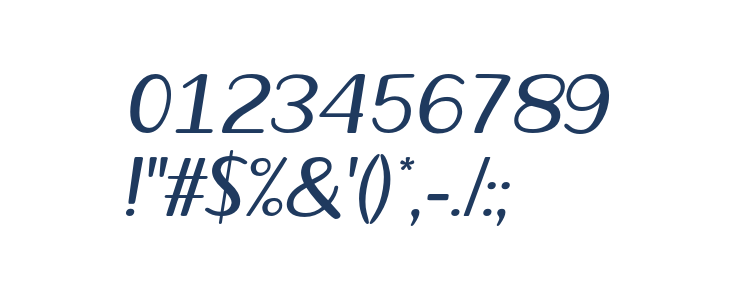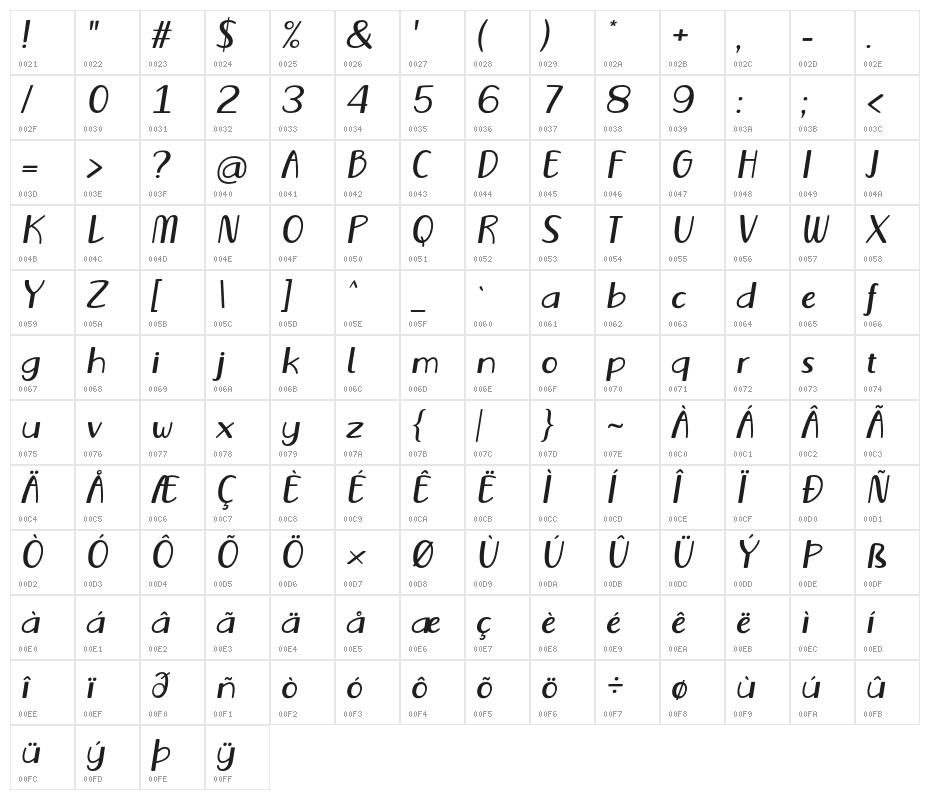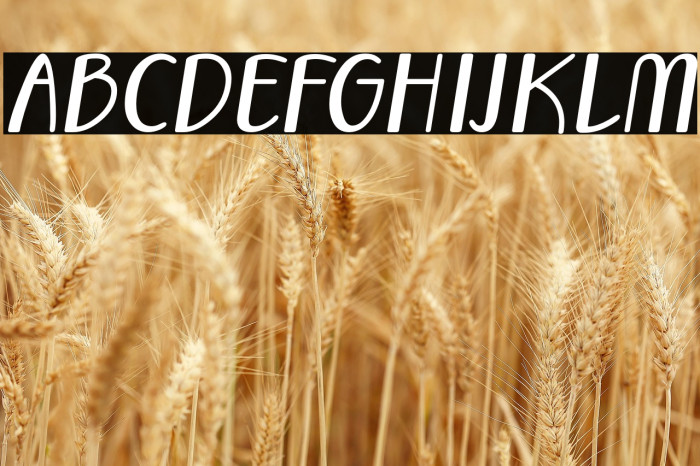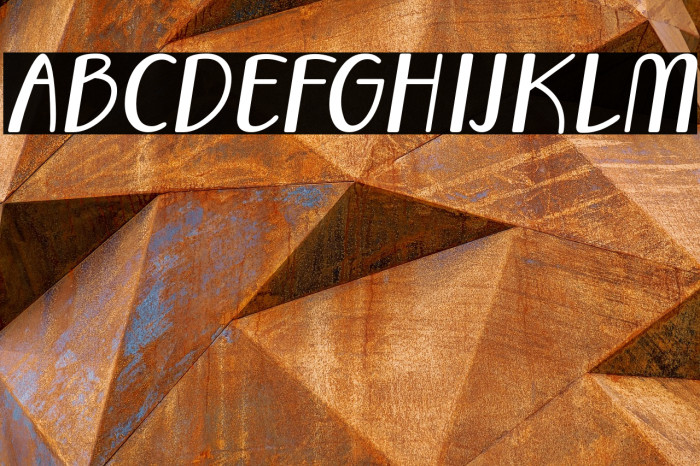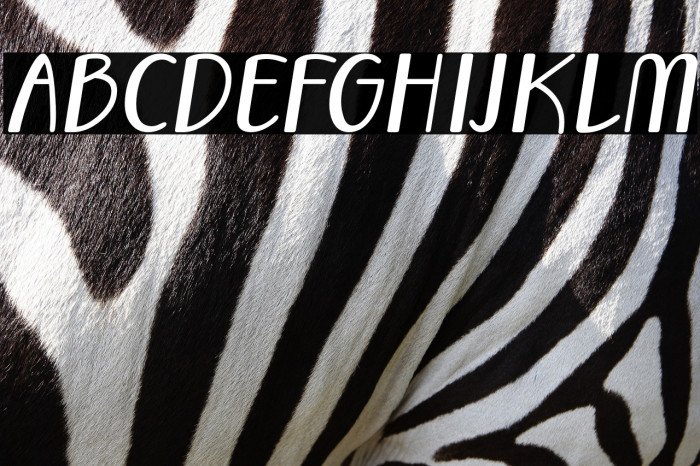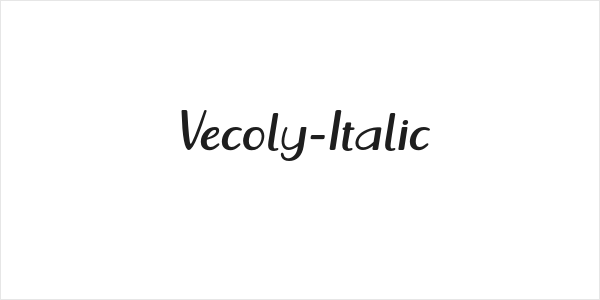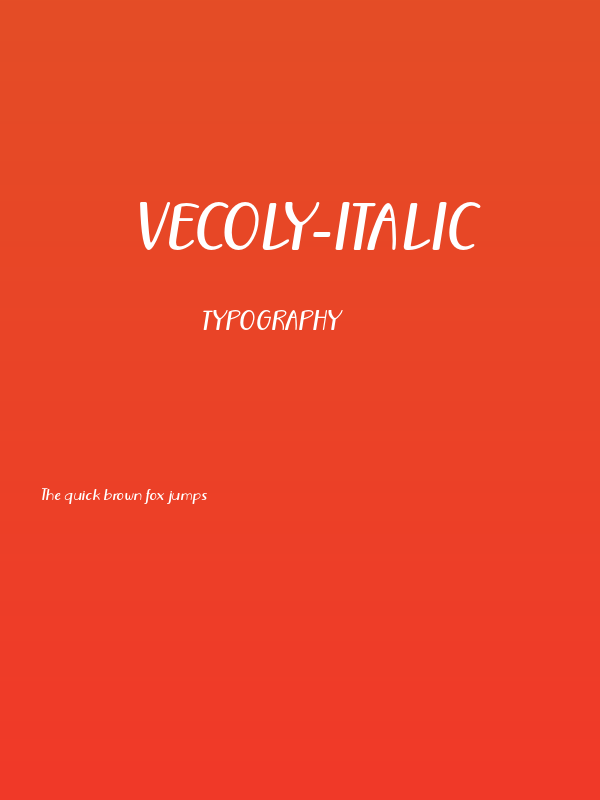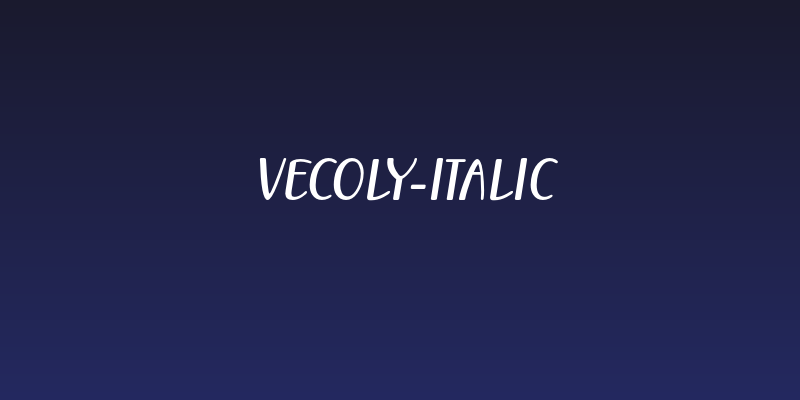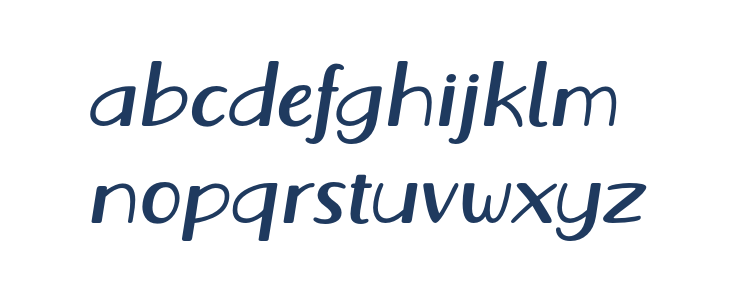
Vecoly-Italic Font
Vecoly-Italic Description
This font features a dynamic and flowing italic style, characterized by its smooth curves and slightly slanted letters. The uppercase letters maintain a consistent height, while the lowercase letters exhibit a playful yet elegant form. The numerals are clear and distinct, complementing the overall aesthetic. Special characters are well-integrated, maintaining the font's cohesive look. The font's design is modern and versatile, suitable for various creative applications.
| Proposed Projects | Ideal for branding, invitations, and editorial design where a touch of elegance and modernity is desired. |